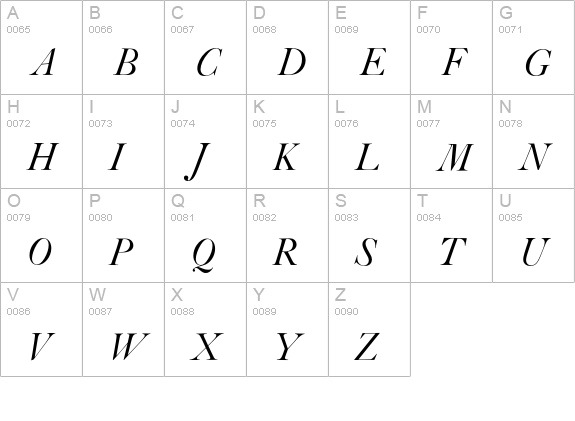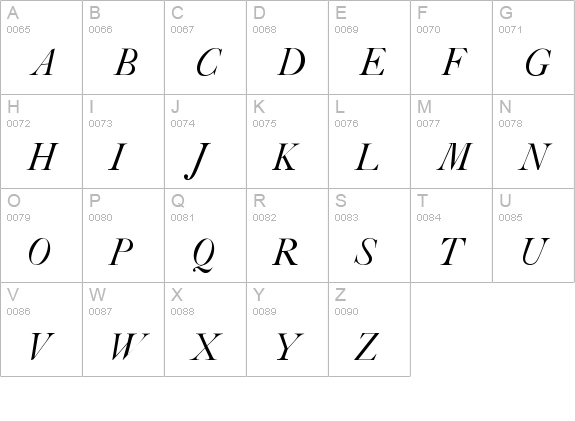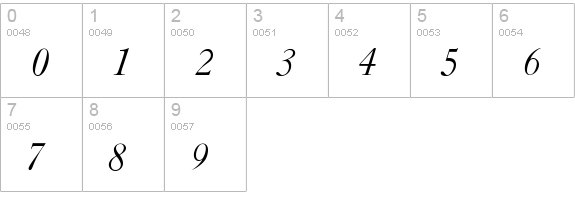
CaslonC437-ItalicH Font Details
CaslonC437-ItalicH is a beautifully crafted italic font that exudes elegance and sophistication. With its delicate curves and stylish slant, this font is perfect for adding a touch of flair to any design project. Whether you're creating wedding invitations, logos, or editorial layouts, CaslonC437-ItalicH will elevate your work to new heights. What's even better is that this stunning font is available for free download at FontsMarket.com. You can easily access this premium-quality font without any cost, making it an invaluable addition to your font library. Don't miss out on the opportunity to enhance your designs with the timeless charm of CaslonC437-ItalicH. Download it today and see the magic it brings to your projects!